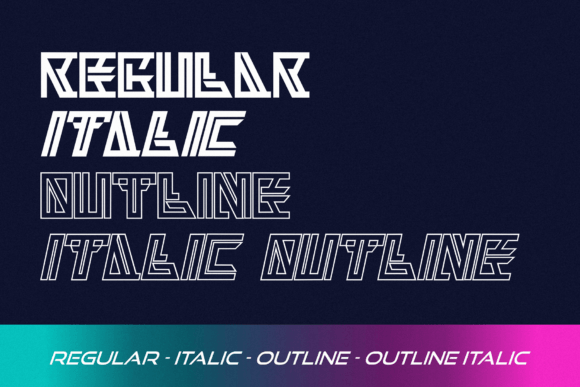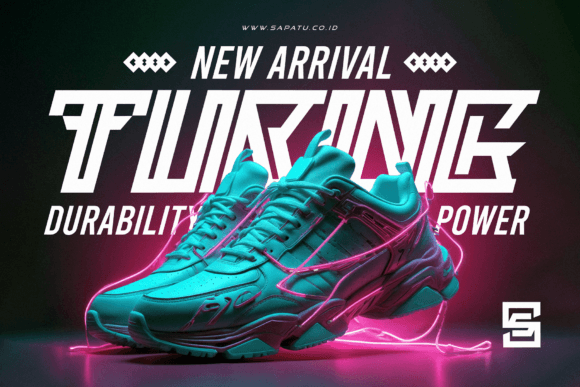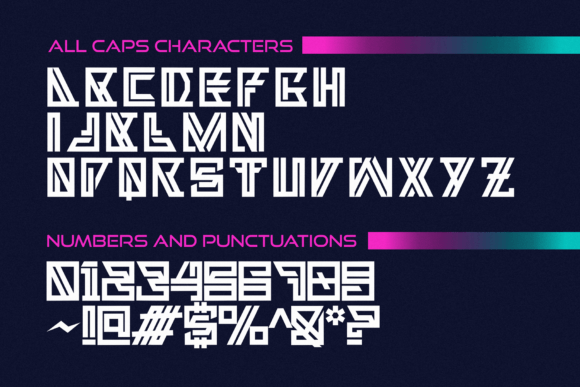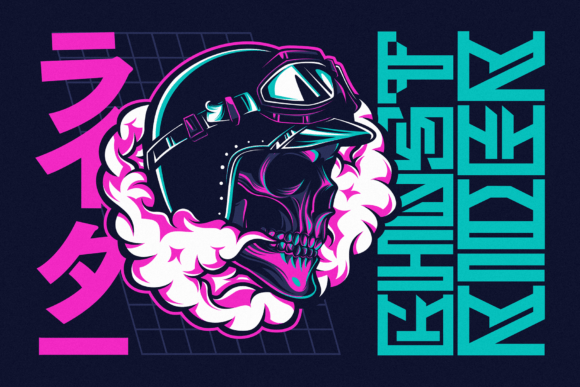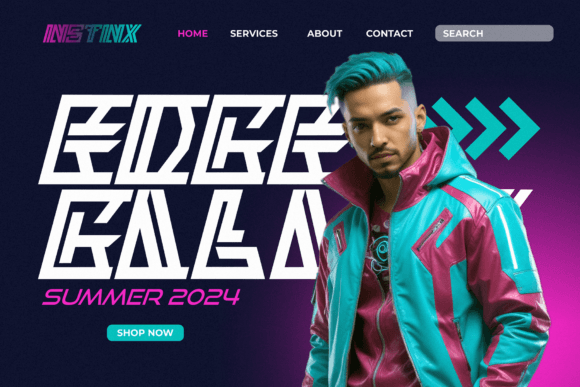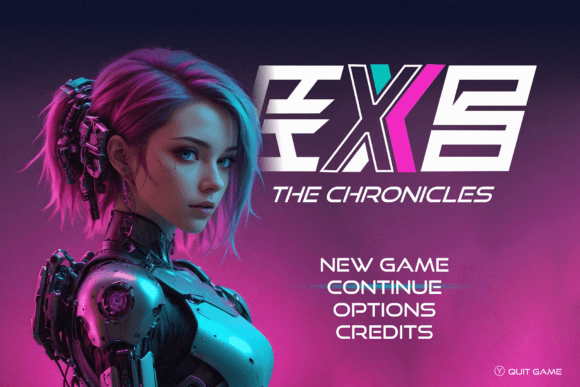
Introduction to Neon Strix Font
Neon Strix is a cutting-edge futuristic display font that electrifies your designs with its vibrant and dynamic style.
Perfect for modern, tech-inspired projects, this font comes in four versatile styles: Regular, Italic, Outline, and Outline Italic .
Key Features of Neon Strix Font
Why Choose Neon Strix Font?